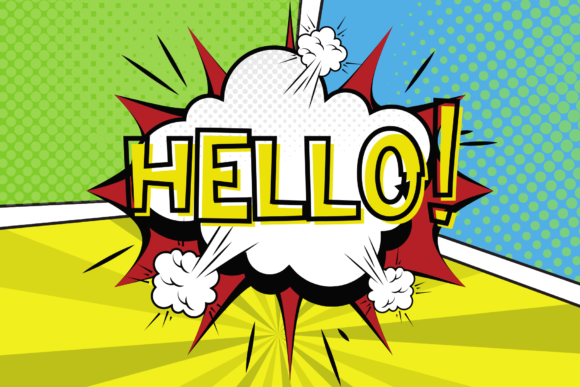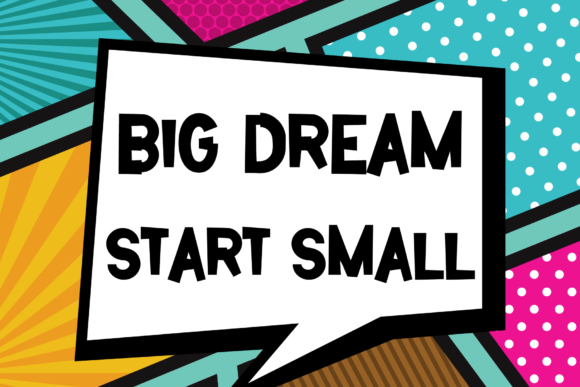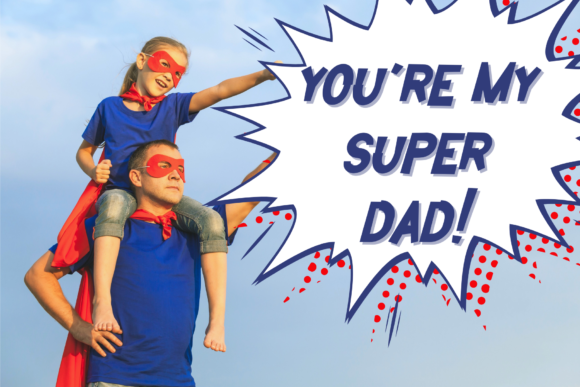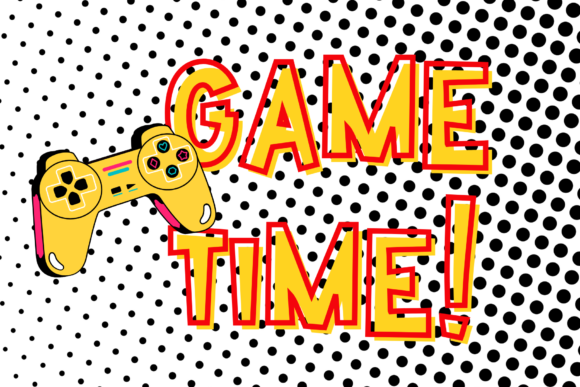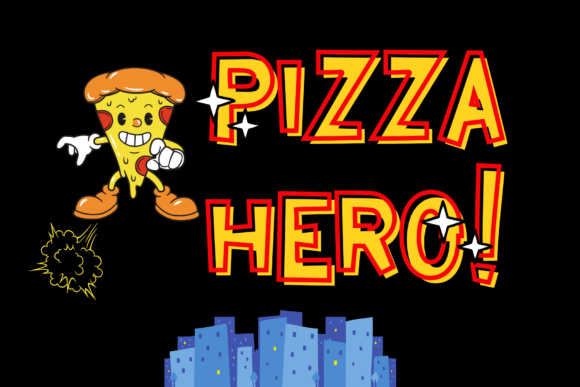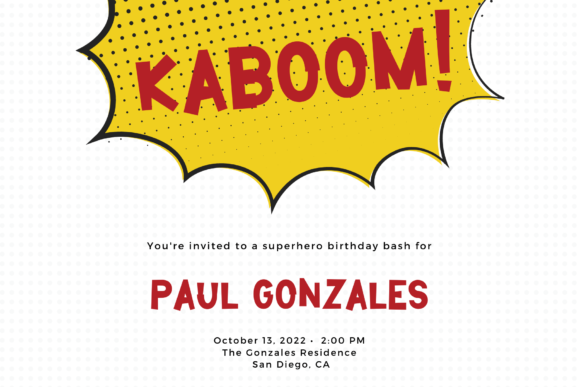
The Joy of Cartoon Town Font
Have you ever stared at a blank canvas, waiting for the perfect idea to strike? For many designers, it’s that moment of pure creativity when everything comes together – the color palette, the typography, the overall vibe. It’s a feeling that’s hard to replicate, but one font is sure to bring a smile to your face: Cartoon Town Font.
This charming comic display font is designed to add a playful touch to your designs. With its well-shaped characters, Cartoon Town Font is the perfect way to inject some joy into your work. Whether you’re creating a children’s book, a social media campaign, or simply a fun graphic, this font is sure to make your designs stand out.
As a valuable addition to any designer’s toolkit, Cartoon Town Font is a must-have for anyone looking to add a touch of whimsy to their work. Its versatility and charm make it a go-to choice for creatives of all levels, and we can’t wait to see what you create with it!
Key Features of Cartoon Town Font
- Font Family: Cartoon Town Font is a sans-serif font family that offers a playful and whimsical feel to your designs.
- Unique Characteristics: Cartoon Town Font features exaggerated letterforms, rounded edges, and a bold personality, making it perfect for children’s books, cartoons, and other playful designs.
Designer Review: Cartoon Town Font
Overall, I’d say Cartoon Town Font is a fun and playful addition to any project. ✨ Its unique, hand-drawn style brings a sense of whimsy and imagination to text, making it perfect for children’s books, animated films, or even social media campaigns.
- Its wide range of character styles and expressions make it easy to convey different emotions and personalities.
- Cartoon Town Font is highly legible, even at small font sizes, making it a great choice for digital applications.
- ⚠️ The font may be too childlike or cartoonish for more serious or professional projects.
- ⚠️ Some characters may be difficult to read or recognize, especially for those with visual impairments.
- ⚠️ The font may not be suitable for projects that require a high level of precision or professionalism.
Overall, I think Cartoon Town Font is a great choice for designers who want to add a touch of playfulness and creativity to their projects. Just be sure to consider the project’s tone and audience before using it.
Tips for Getting the Most Out of Cartoon Town Font
Use Cartoon Town Font to add a playful and whimsical touch to your designs.
Combine it with bold colors and fun illustrations to create eye-catching graphics.
Cartoon Town Font is perfect for:
Children’s book covers and illustrations.
Party invitations and decorations.
Fun and playful social media graphics.
Advertising and promotional materials for family-friendly brands.